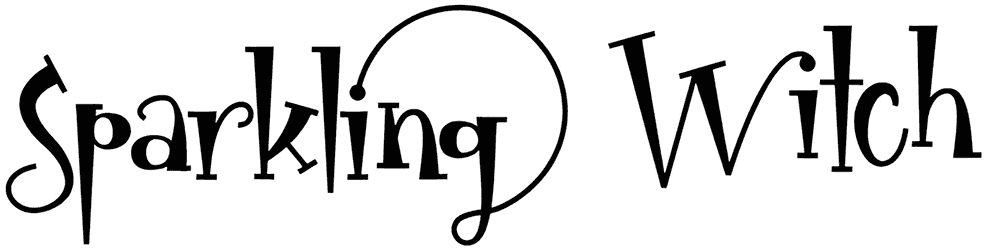
Sparkling Witch Font
Mysterious, scary, and classic are the things that describe Sparkling Witch. This Halloween font can create a spooky atmosphere that guarantees the success of your designs.
So, if you’re tired of bleeding fonts and don’t want to have too many decorations of such fonts, use the elongated letters and twists of this fantasy font. The new face that Sparkling Witch can give to your Halloween posters, packaging, and t-shirts has wholly covered your needs except for the numbers in this collection.